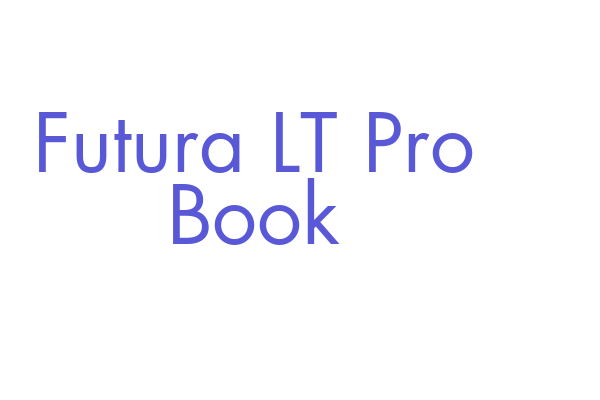
Futura LT Pro Book is a sleek and modern sans-serif font designed by Paul Renner. Part of the Futura LT Pro font family, this particular style is clean and easy to read, making it perfect for a wide range of design projects. Ideal for conveying a sense of professionalism and simplicity, Futura LT Pro Book is a versatile choice for both print and digital applications.
Font Name: Futura LT Pro Book
Designer: Paul Renner
Font Family: Futura LT Pro